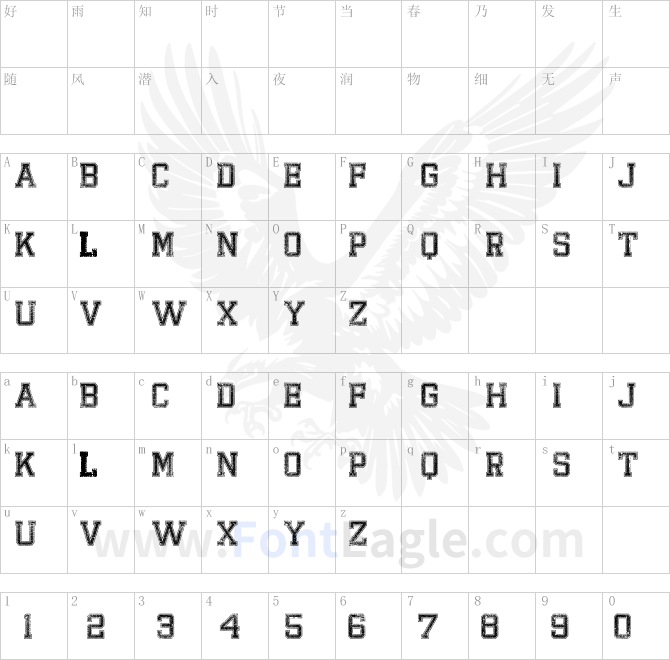
- Font name:Bandung Hardcore GP
- Font Subfamily ID:GilangPurnamaJaya: Bandung Hardcore : 2010
- Font Full Name:BandungHardcoreGP
- Font Version:Version 1.000 BETA
- Postscript:BandungHardcoreGP